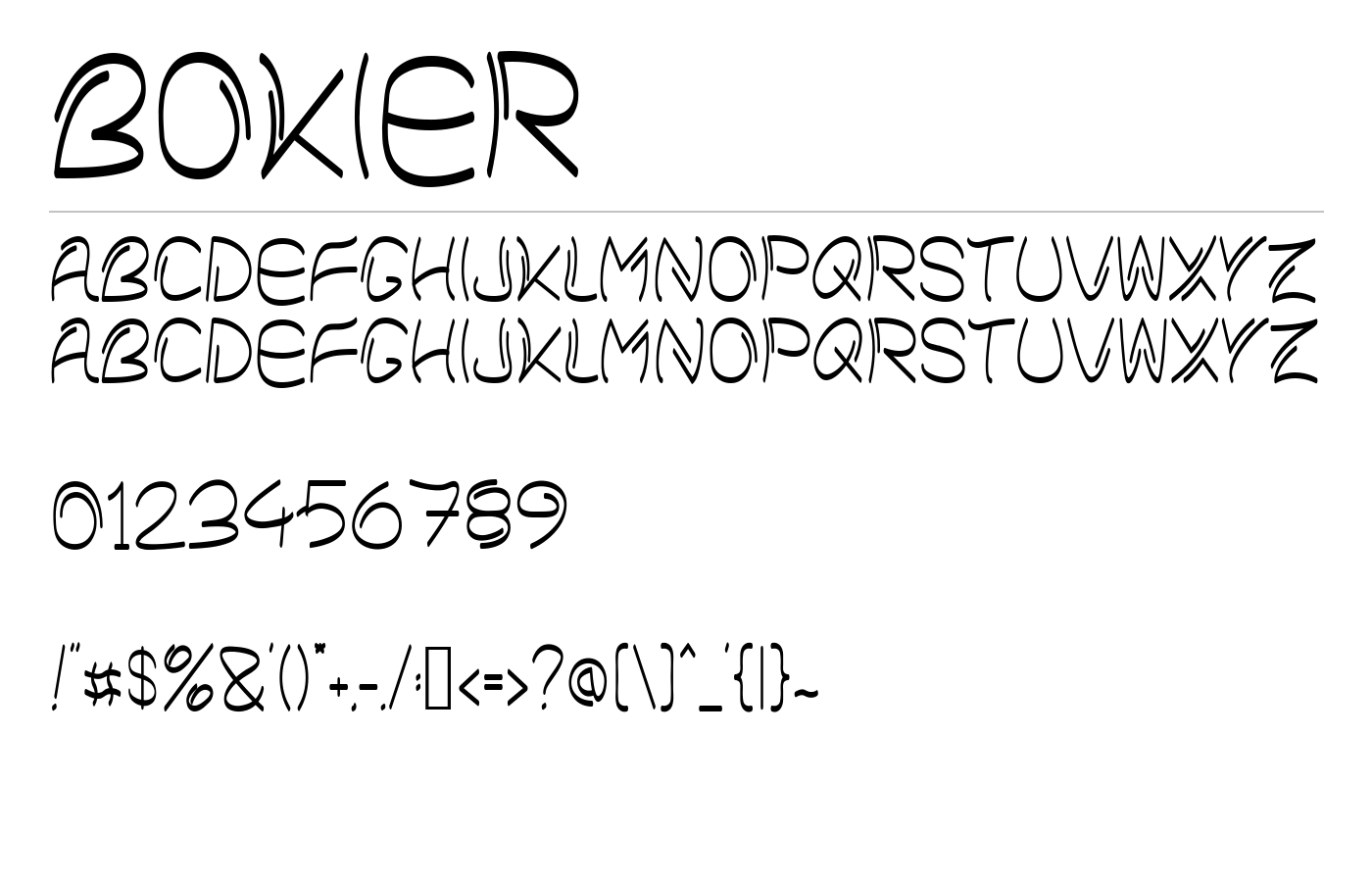
Bokier is a playful and modern sans serif font characterized by its thin, flowing lines and whimsical letterforms that evoke a hand-drawn feel. Its light weight and airy spacing make it ideal for creative projects, logos, and headlines where a casual yet distinctive style is desired. This font works well in fun, informal branding and design contexts that seek a fresh, artistic personality.
Bokier Font
About Bokier Font
| Font family | Bokier Font |
| Designer | Munlis Crtv |